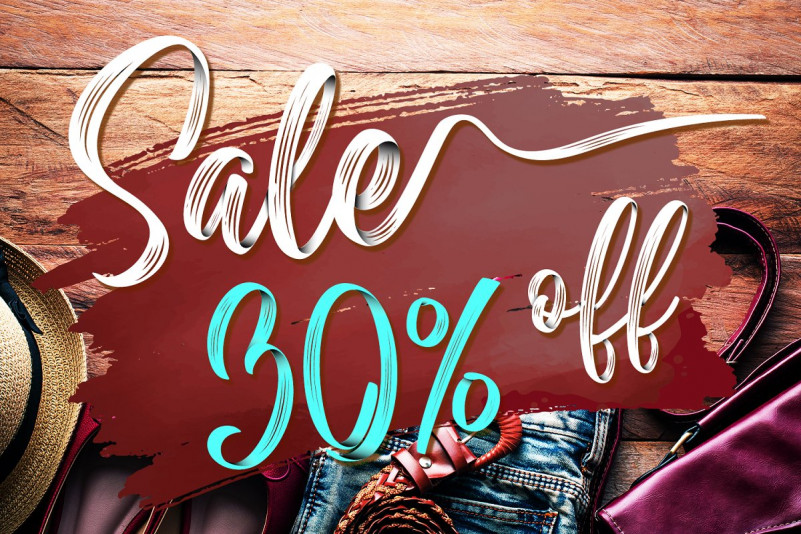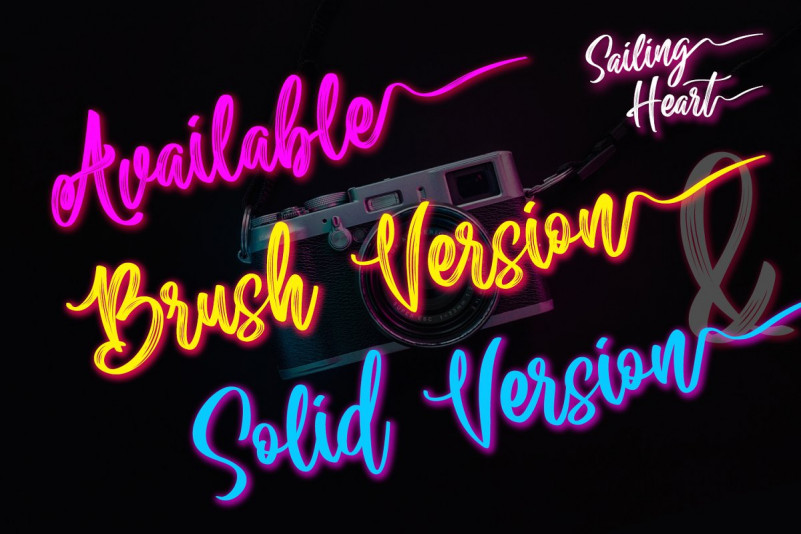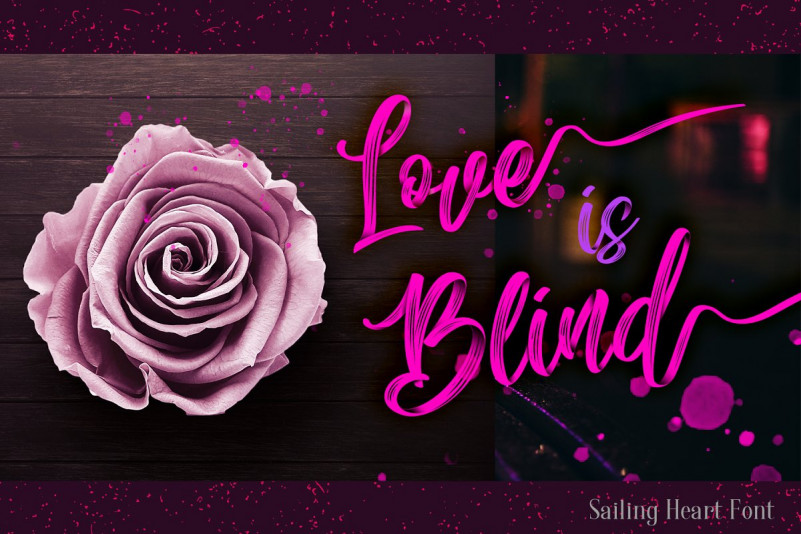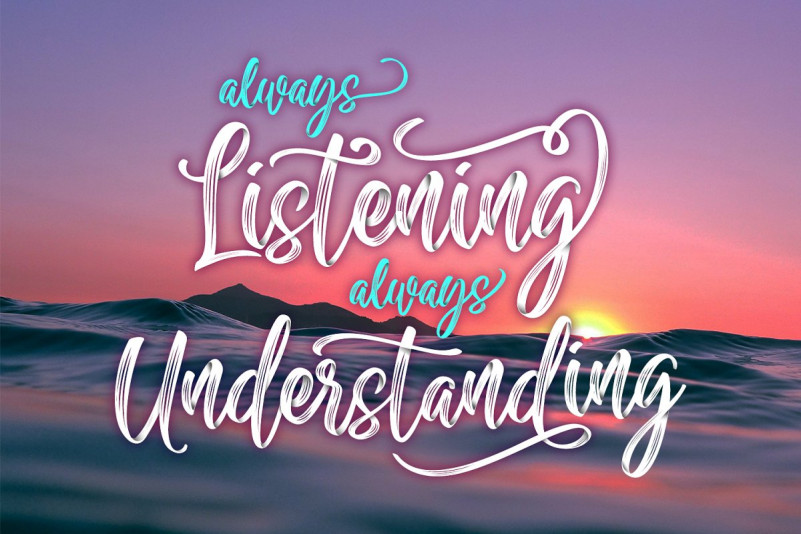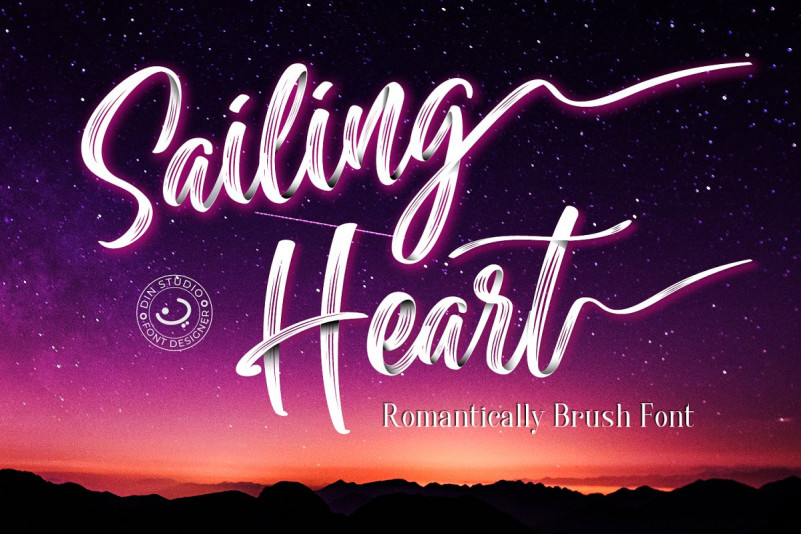
Sailing Heart Brush Font
Sailing Heart Brush Demo Font
This is handwritten script font with dry brush and signature style. Where is your next destination? Starts your journey! Proudly presents latest product Sailing Heart Script! It is designed and shared by Din Studio. Sailing Heart Brush Font is a beautiful script font, Made with naturally brush. Texture from the brush font will make your design more beautiful and powerful. This font is suitable for any design like branding, quotes, wedding invitation, lettering project and etc.